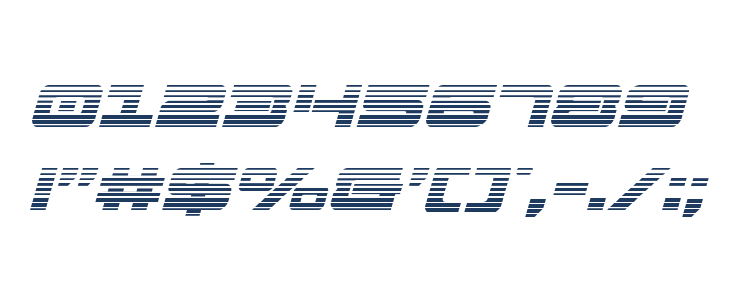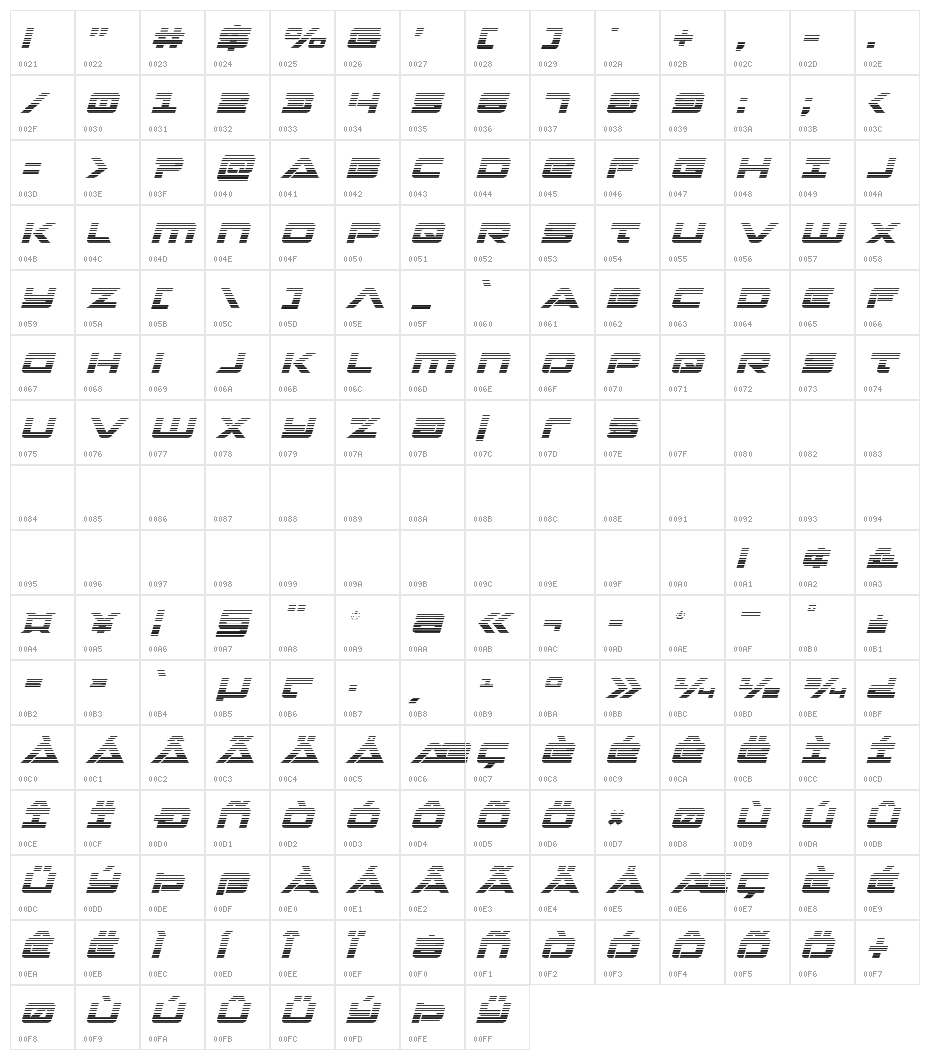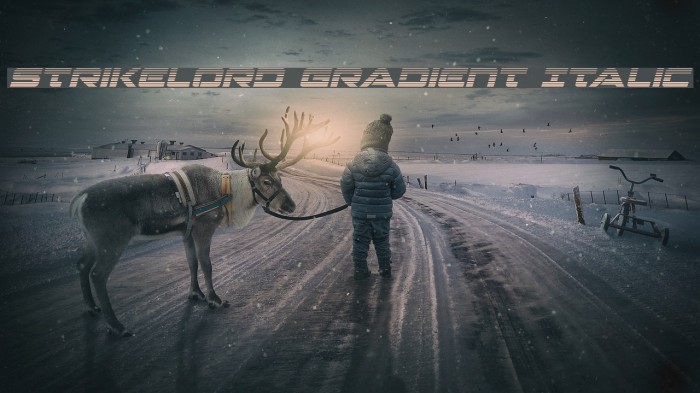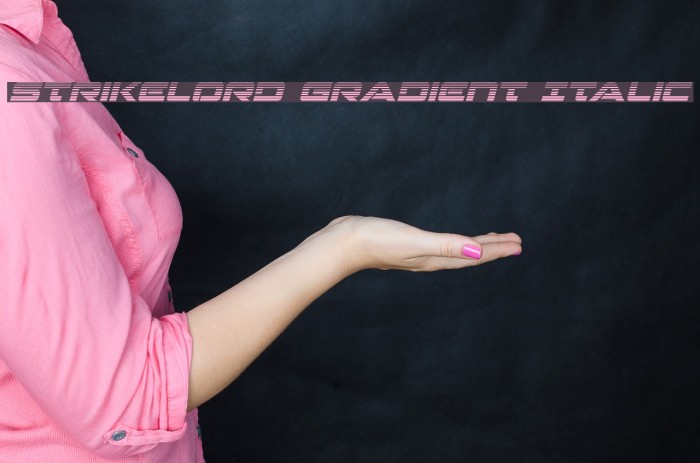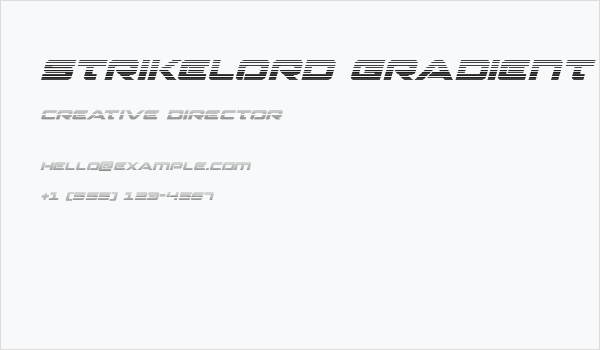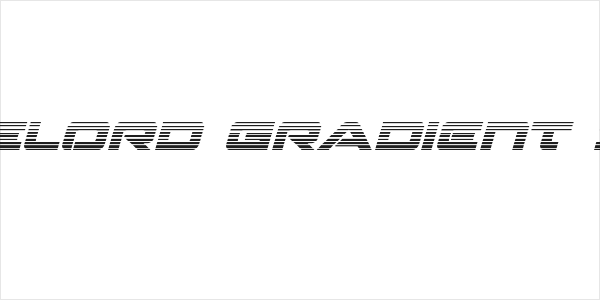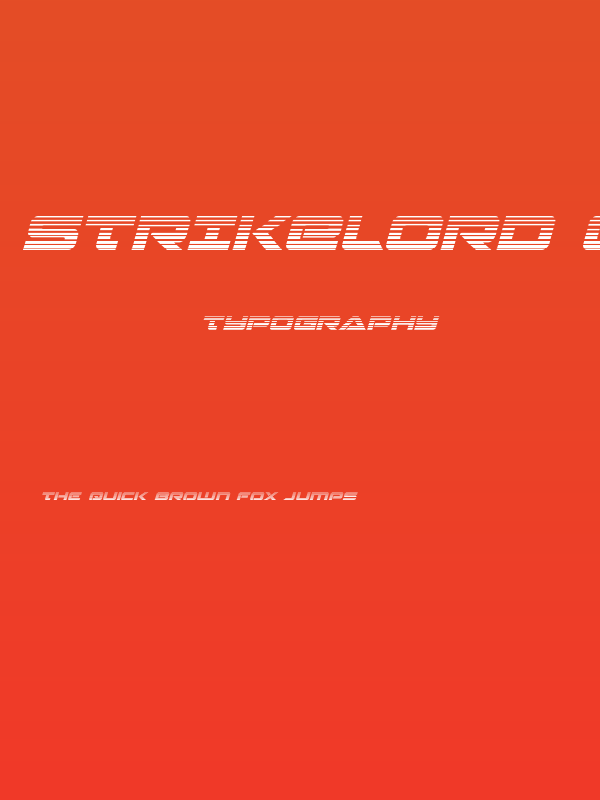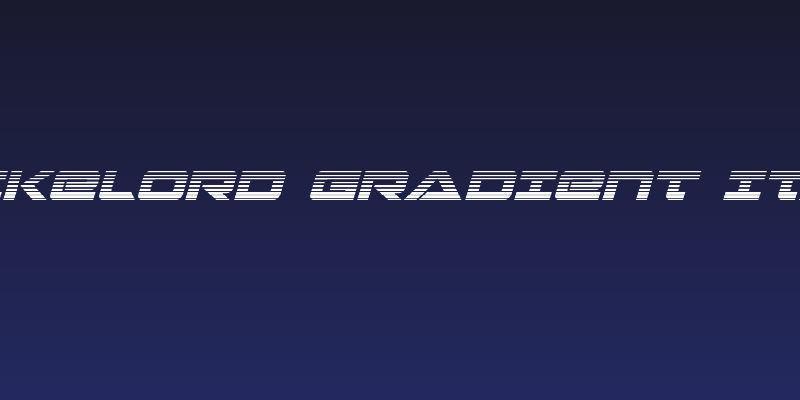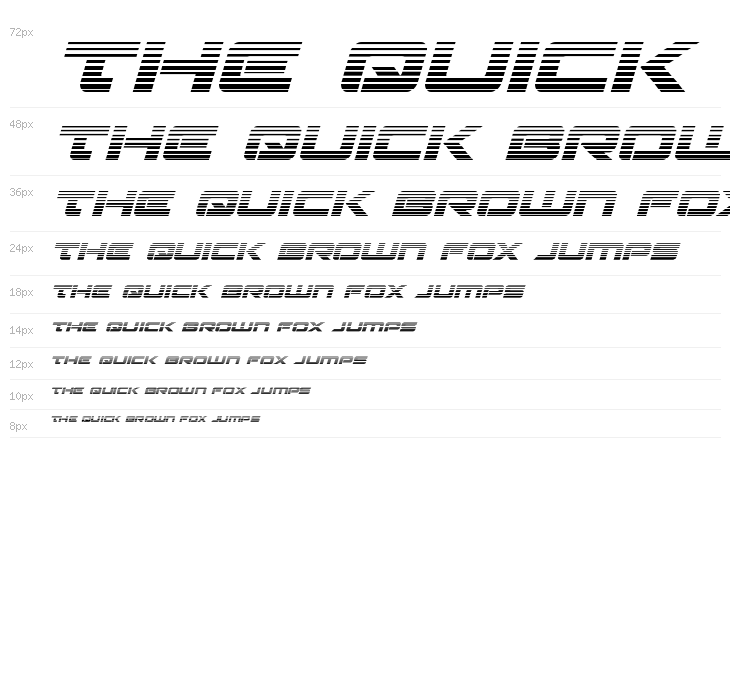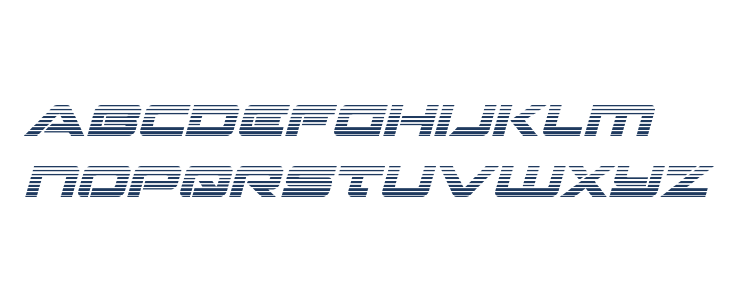
Strikelord Gradient Italic Font
Strikelord Gradient Italic Description
This font features a dynamic, futuristic design with a gradient effect that gives each character a sense of movement and depth. The italicized style adds a sleek, forward-leaning appearance, enhancing its modern and energetic vibe. The characters are composed of parallel lines that create a striped pattern, contributing to its unique and eye-catching look. This font is well-suited for projects that require a bold and innovative aesthetic, such as technology branding, sports team logos, or sci-fi themed designs. The spacing between characters is tight, emphasizing the compact and streamlined nature of the font.
| Use Case | Logos, Headlines |
| Proposed Projects | Ideal for technology branding, sports team logos, sci-fi themes, and innovative design projects. |